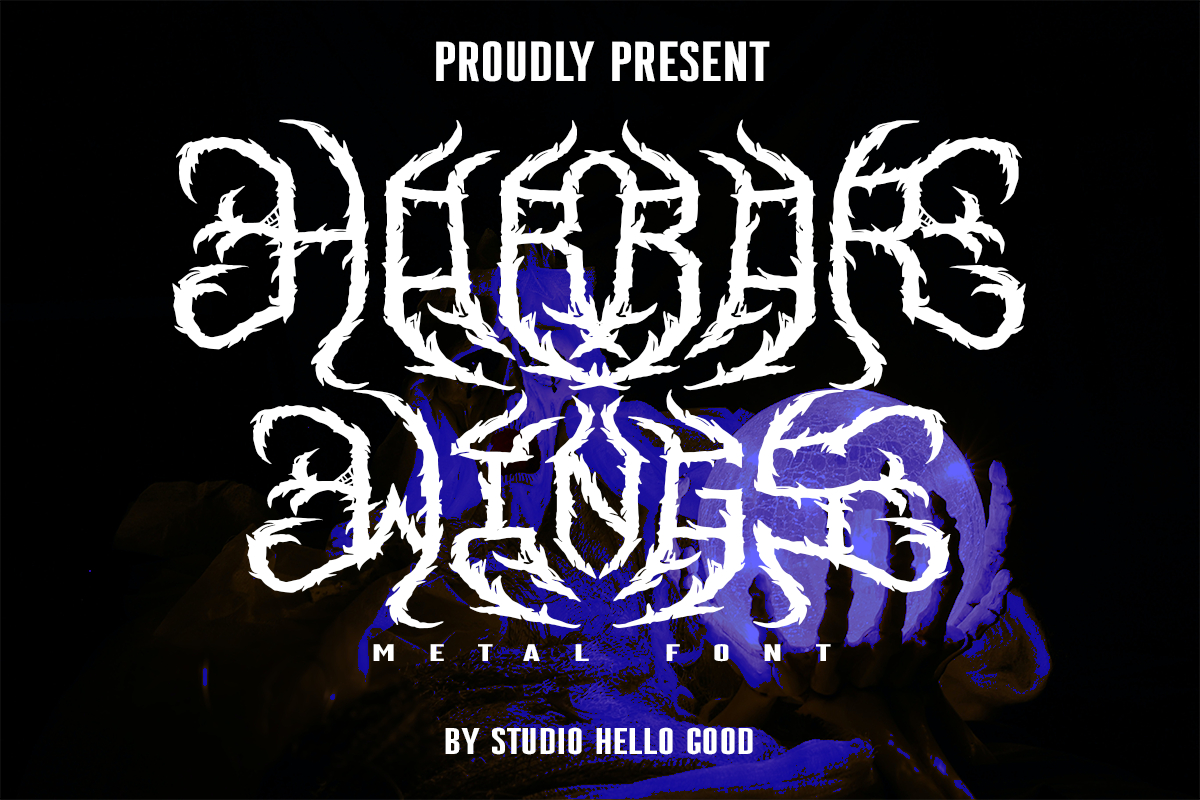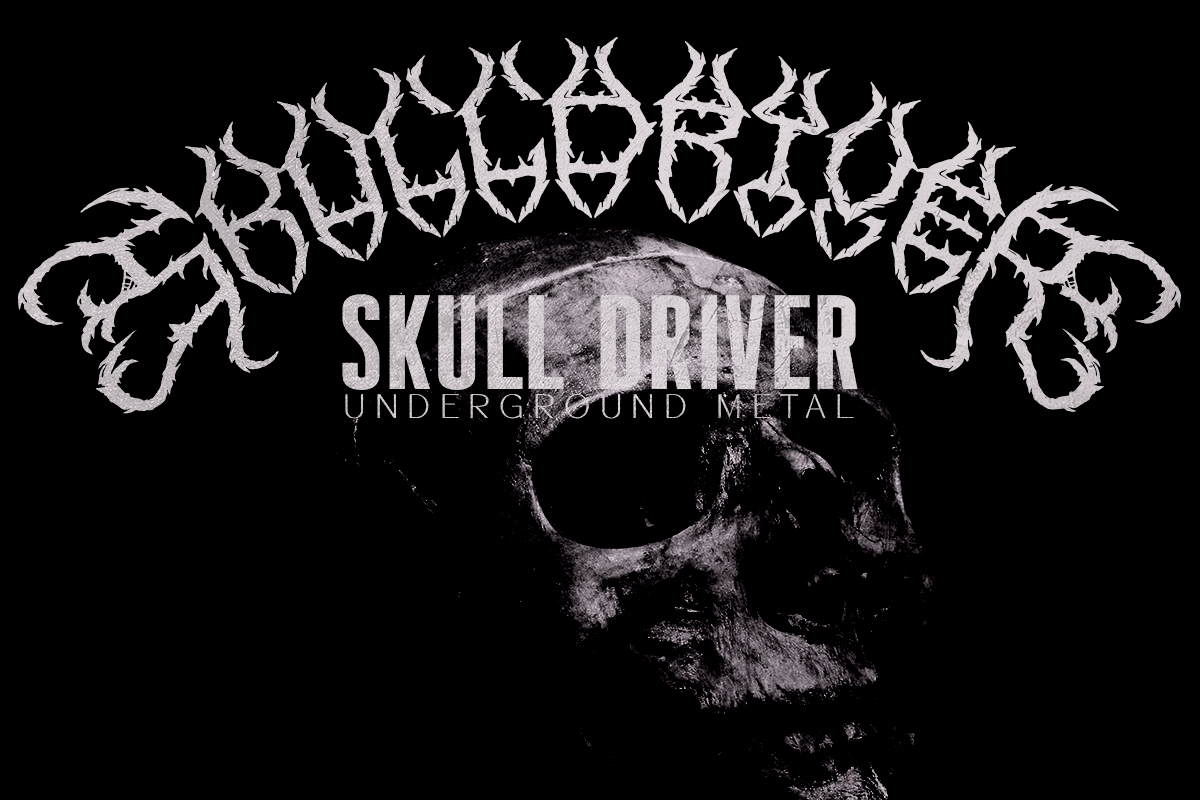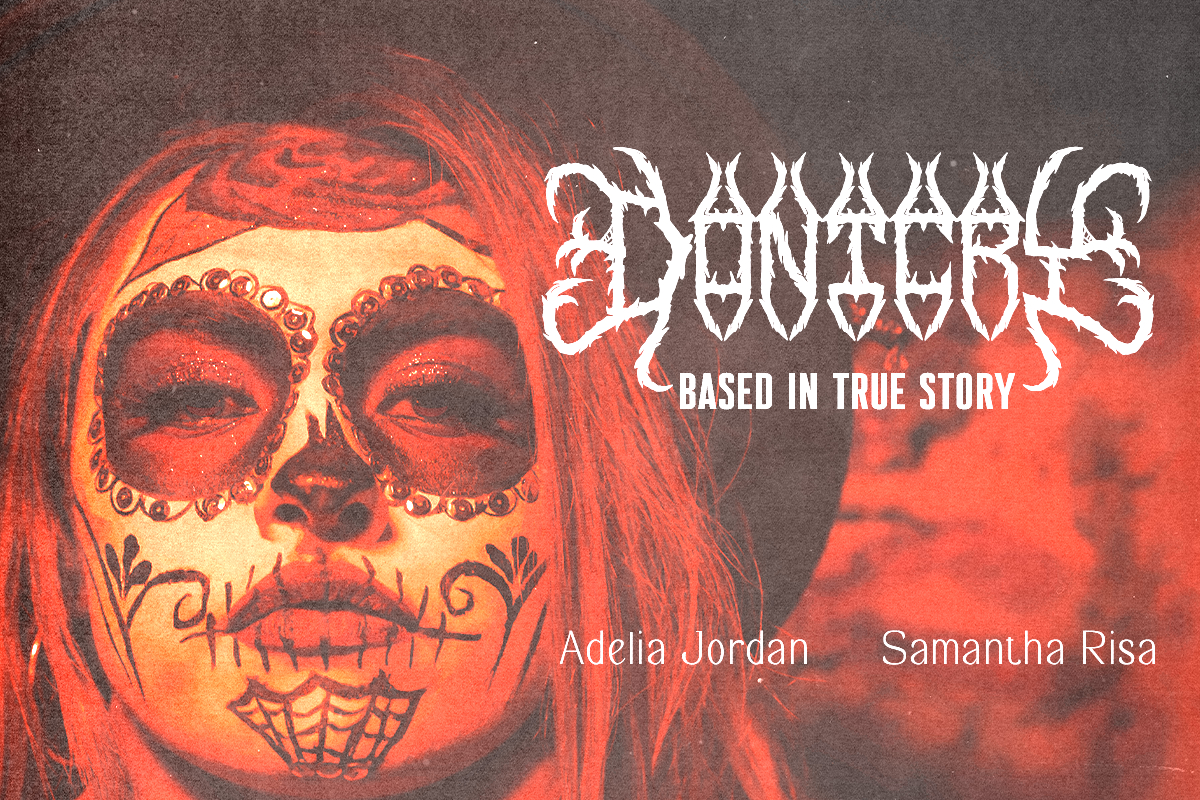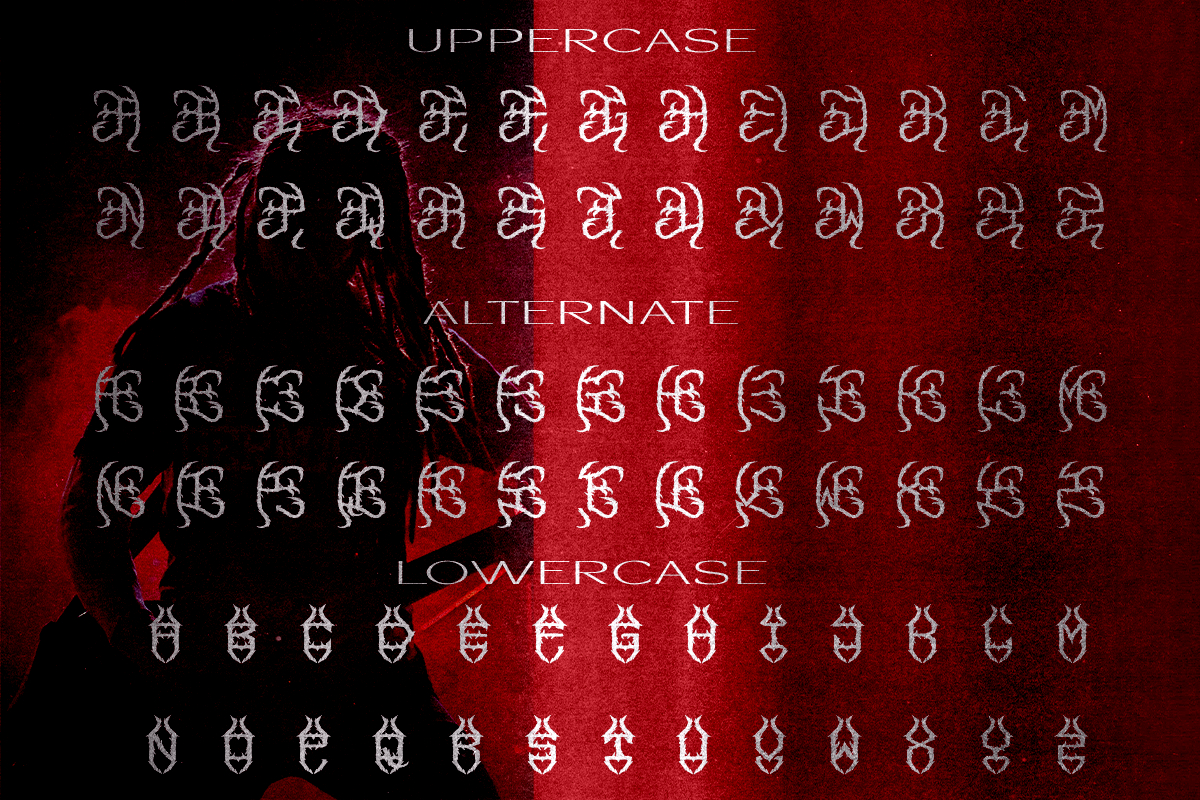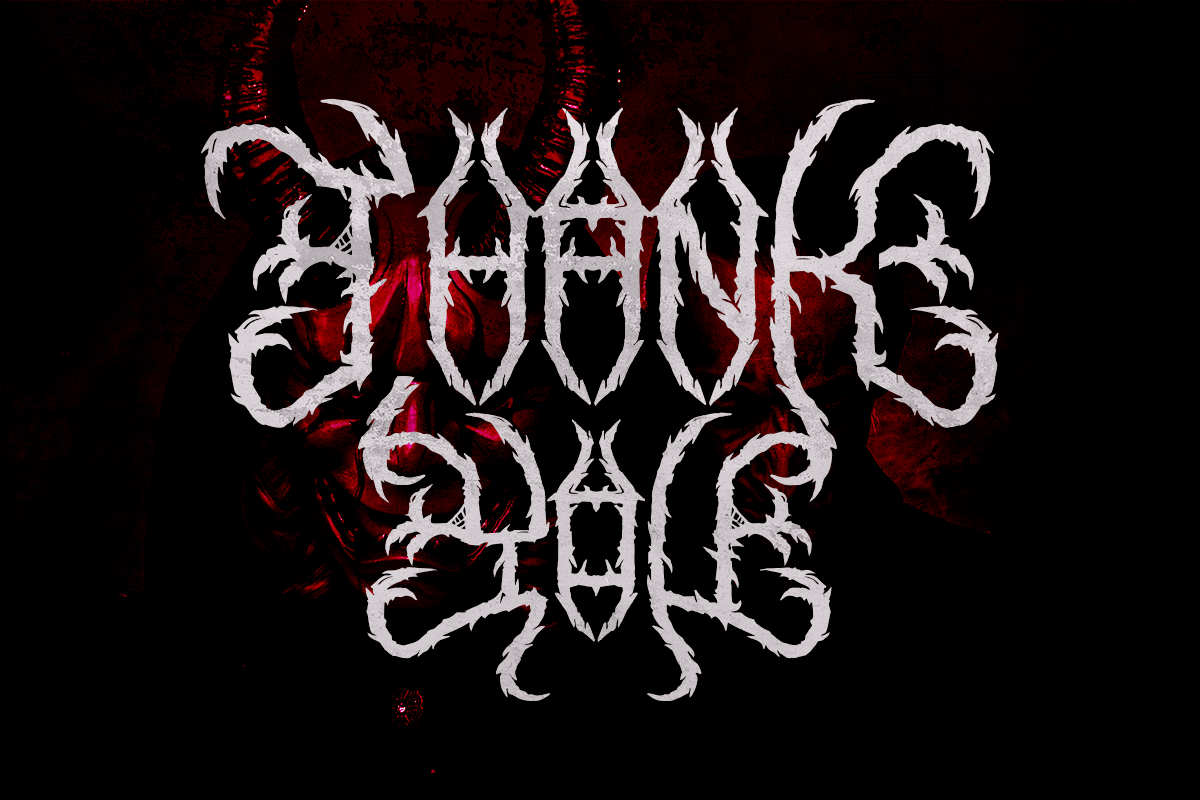
Horror Wing Font
About Horror Wing Font
Prepare to be immersed in the chilling embrace of Horror Wings Font, a font forged in the depths of darkness specifically tailored for the grim landscape of death metal. With its jagged edges and foreboding presence, this font encapsulates the macabre essence of the genre, evoking images of sinister creatures lurking in the shadows.
Horror Wings Font commands attention with its bold and menacing appearance, each letter a twisted testament to the raw power and malevolent spirit of death metal music. From the haunting curves to the razor-sharp angles, every element of this font is designed to strike fear into the hearts of those who behold it.